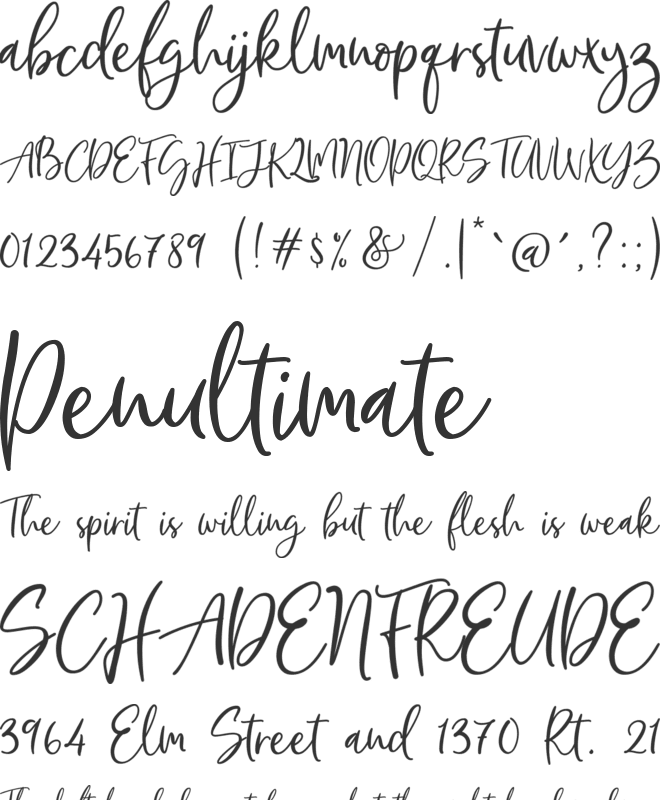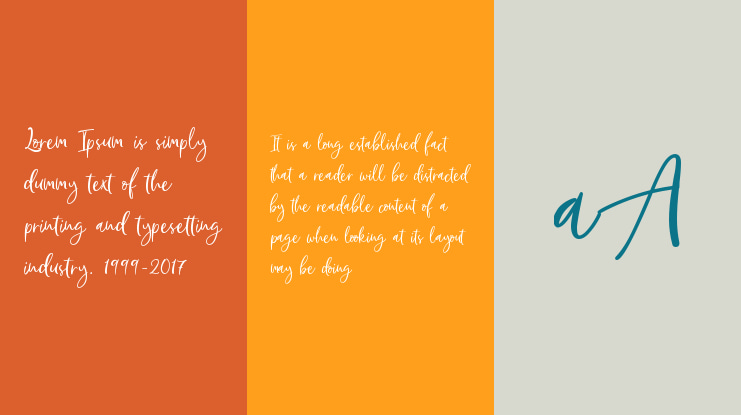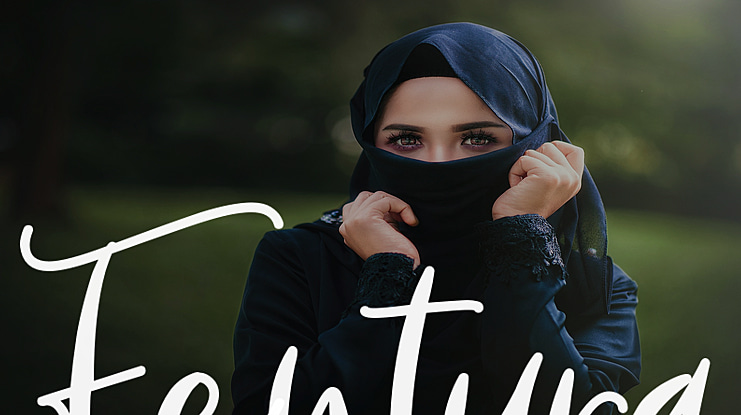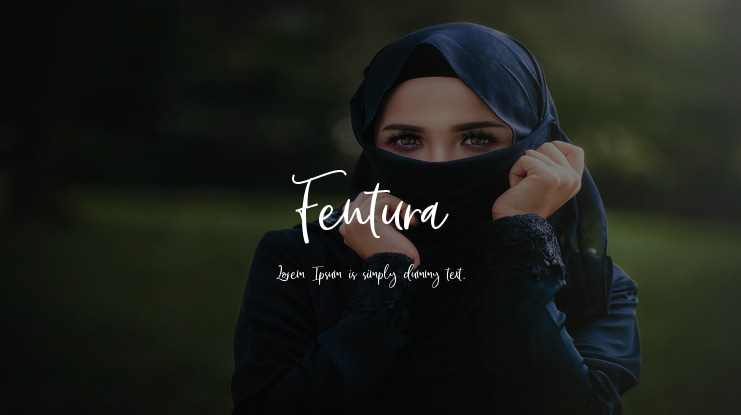
Fentura is a font with a bold signature style,
giving a flexible and elegant impression to your every design.
Create your beautiful imagination with Fentura. Contains a full set of lower & uppercase letters,
a large range of punctuation, numerals, and multilingual support.
Perfect for adding an elegant and unique touch to your lettering projects and branding.
You can create a Wedding lettering or beautiful frame for your home, business,
for book covers, stationery, marketing, magazines and many more.